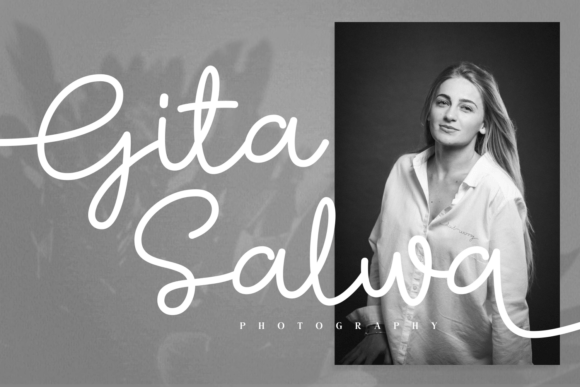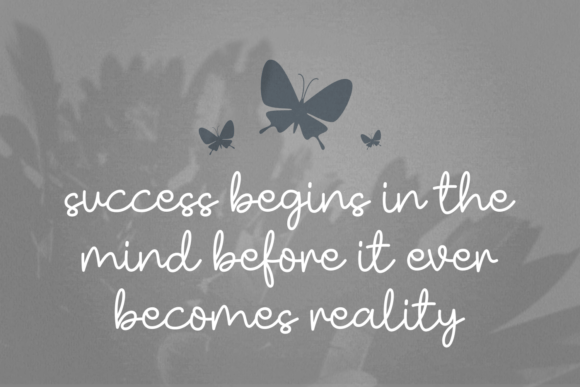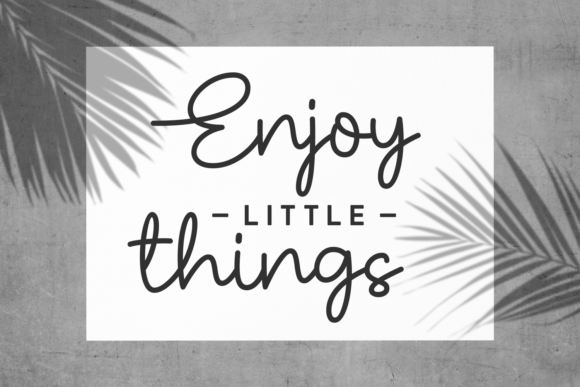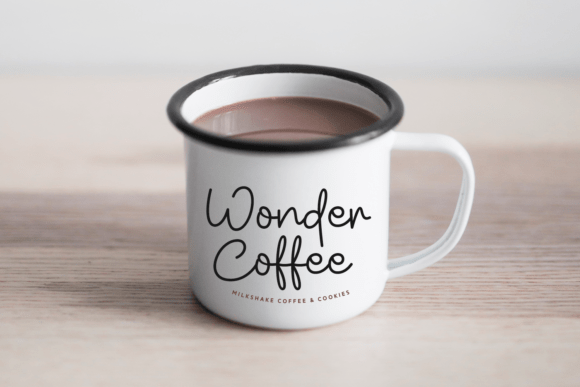
Introduction to Should Font
Should is a fun and quirky monoline script font with a casual, handwritten feel.
Its clean lines and lively curves make it great for creative quotes, social media graphics, planners, and digital scrapbooking .
Key Features of Should Font